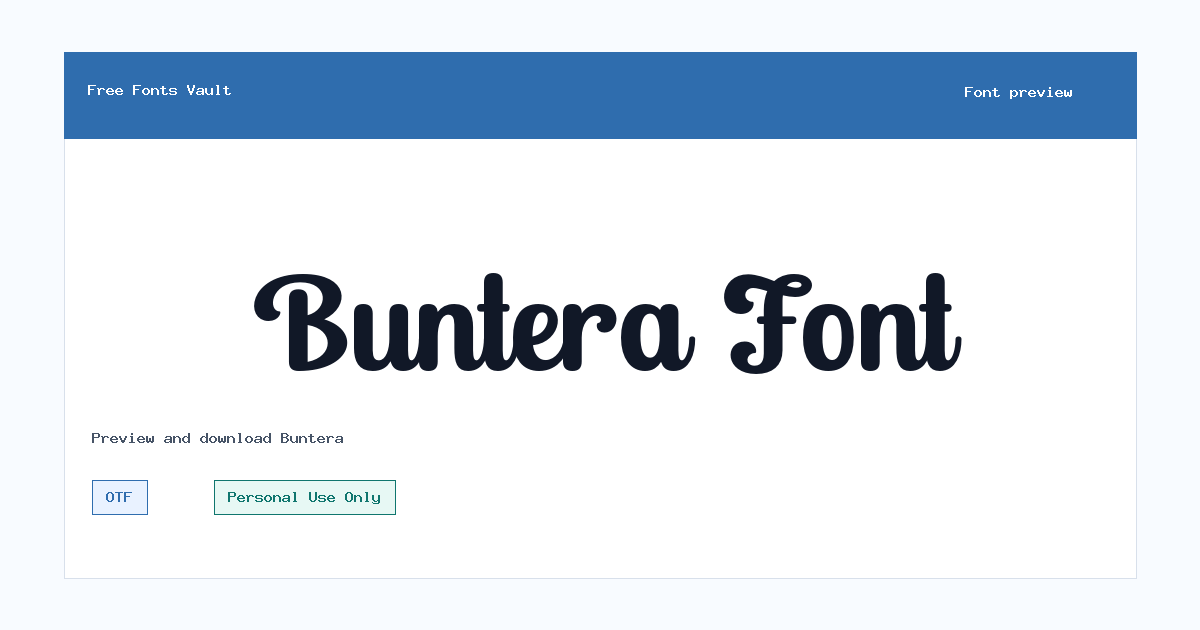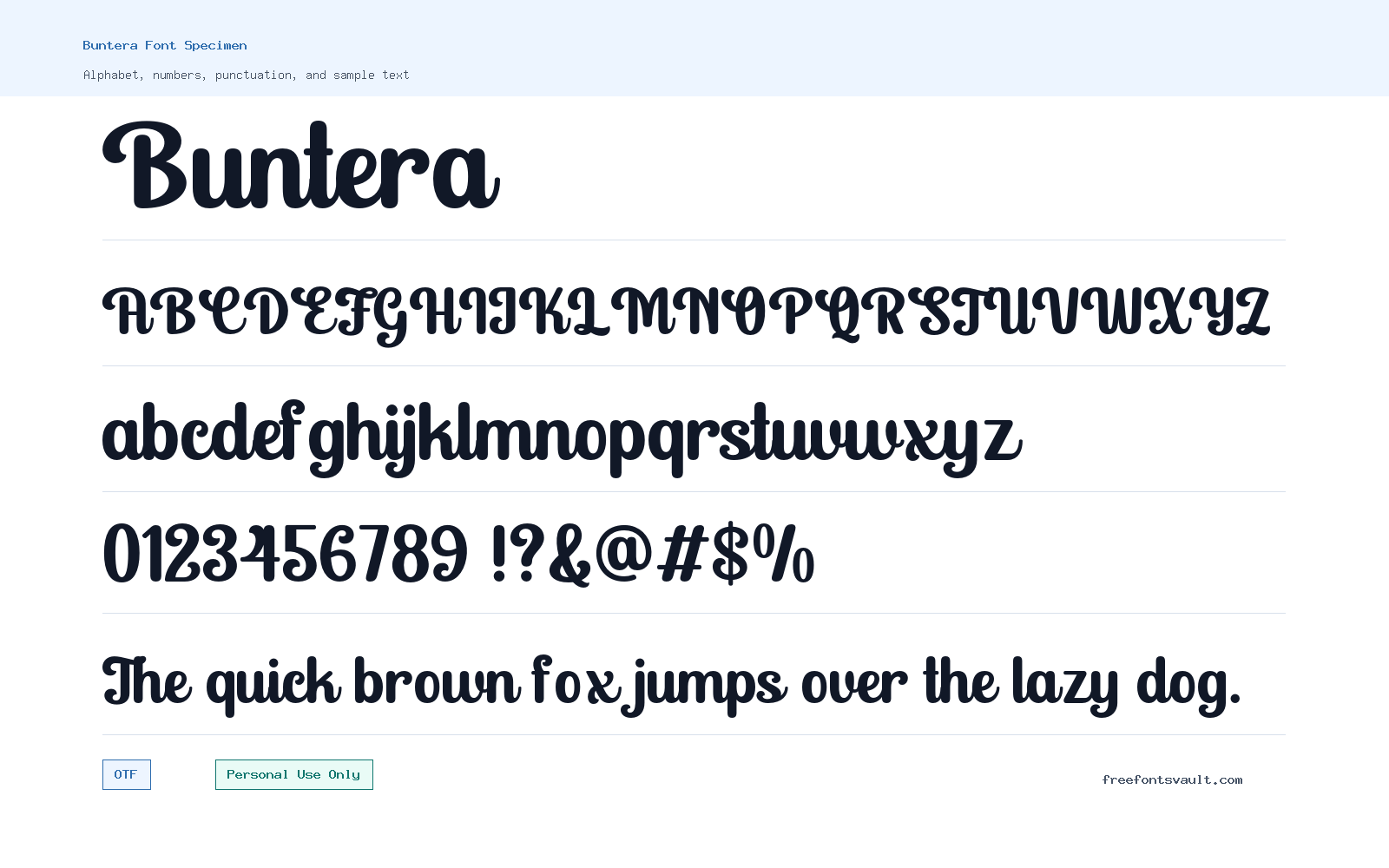
Buntera
- Designer Lettersweet
- Foundry Lettersweet
Buntera font.
Buntera is a display font from Lettersweet, offered in a demo regular OTF file for personal-use projects. It is best approached as a headline or accent typeface rather than a long-reading text font.
About Buntera Font
Buntera is made for short, noticeable text. Because the font is identified as a display style, it is better suited to words that need character and impact, such as titles, poster lines, cover text, packaging mockups, social graphics, and logo-style experiments. Use the preview tool to test the exact words you plan to design with, especially if your text includes punctuation, numbers, or accented characters. A display font can look strong in one-word layouts but become harder to read when it is used for full paragraphs.
- Display typeface suited to short headline-style text
- Includes standard Latin letters, numbers, punctuation, and selected extended characters
- Posters and event graphics
- Logo drafts and brand moodboards
- Social media titles
- Packaging and label mockups
- Album, book, or cover-style lettering
- Short quotes, names, and display headings
What kind of font is Buntera?
Buntera is identified as a display font. It is best for short, attention-focused text such as titles, posters, cover designs, and logo-style previews.
Can I use Buntera for body text?
It is not the best choice for long reading. Use it for headings or short phrases, then pair it with a simpler font for paragraphs and small text.
Who designed Buntera?
Buntera is credited to Lettersweet, with the font data also naming Lettersweet as the foundry.